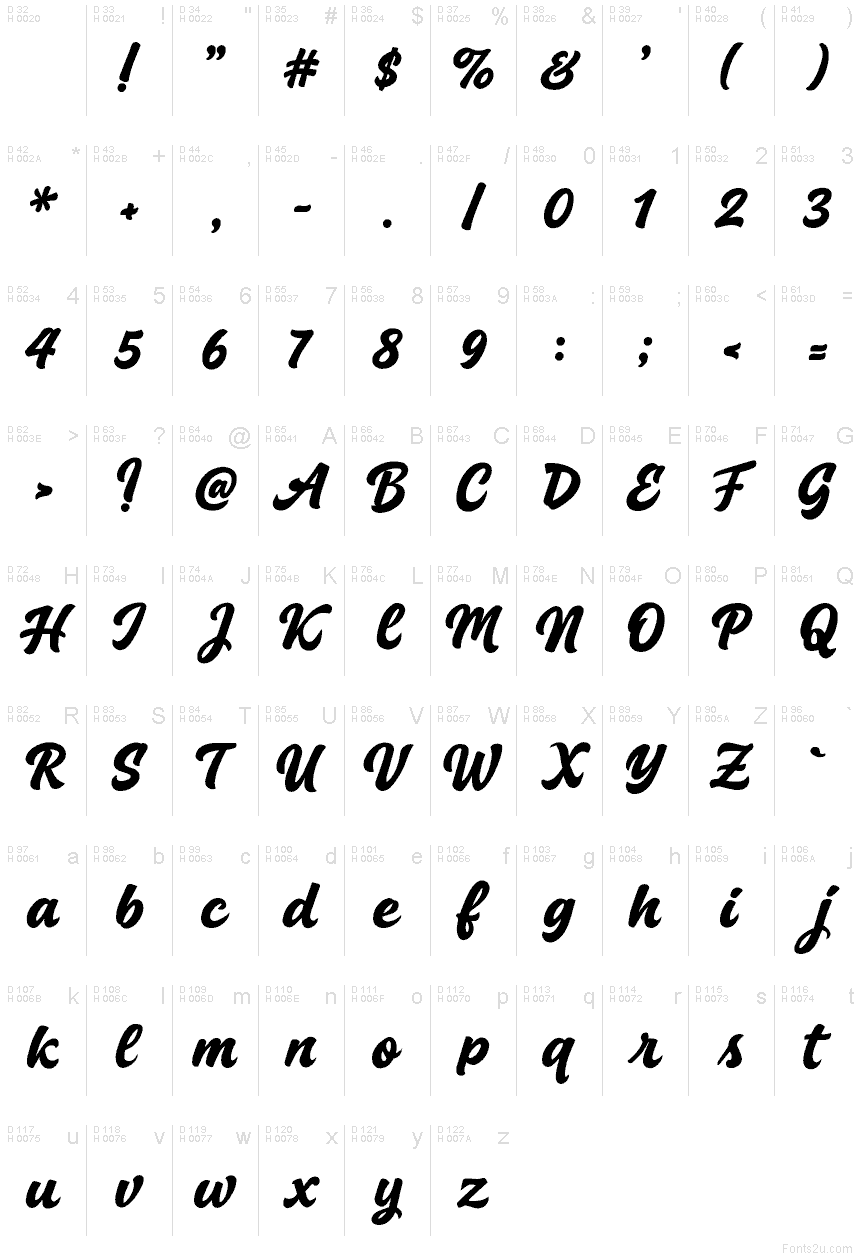
Sealight Whisper
Sealight Whisper font is a free brush typeface created by BlackFridayFont FMF. This modern script features an expressive yet fluid design holding a bold character that can get your text noticed against any background. Enjoy the sleek and elegant strokes of this set with its graceful flow that carries a sense of luxury yet energy to headline texts.
The hint is in the name as, just like each whisper seals secrets in tight, every written message gets embedded within the minds and hearts of those who read them. Make advertisements memorable, those for cosmetics or jewelry lines as well as product labels and signs. It’s both marked and eerie presence also works with tattoo designs and branding projects.